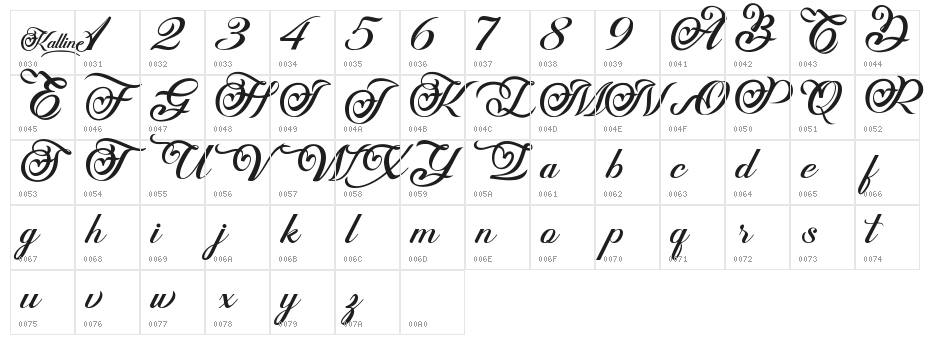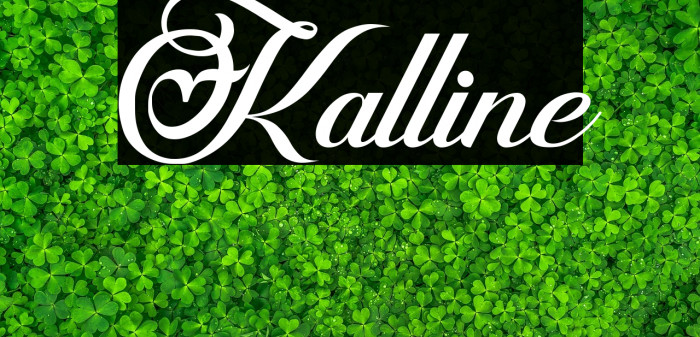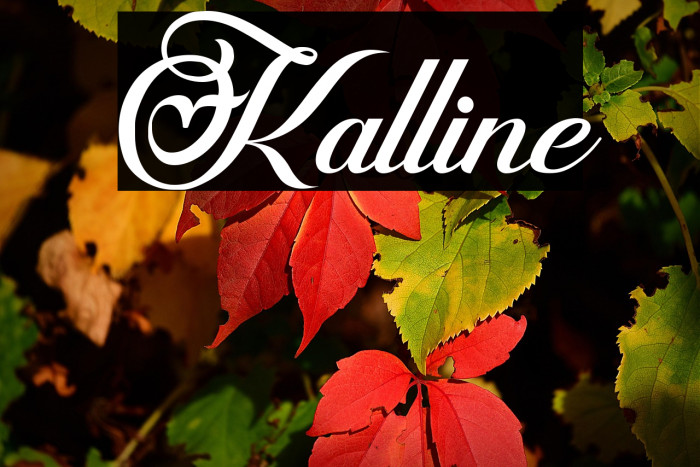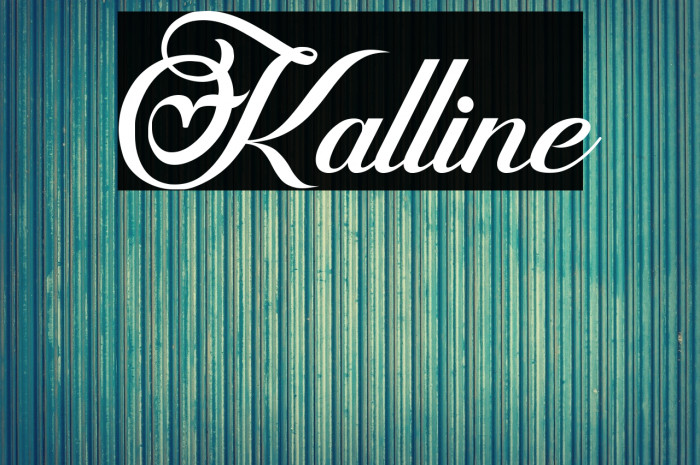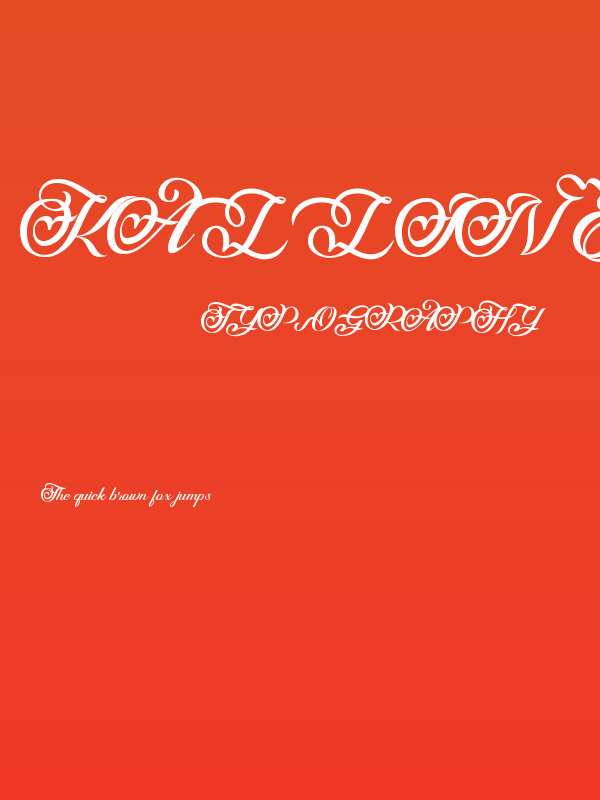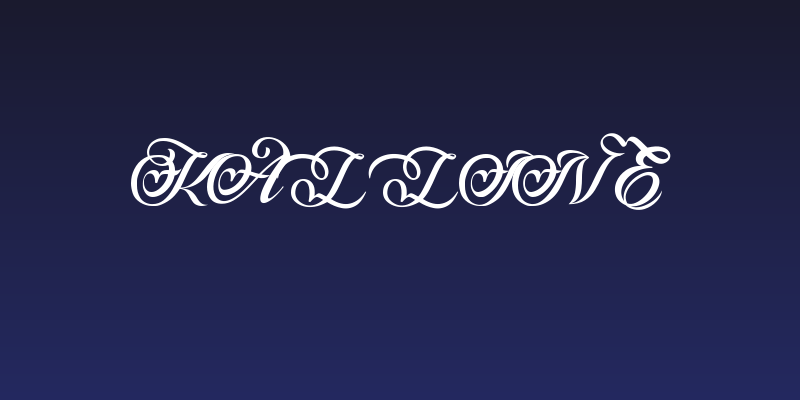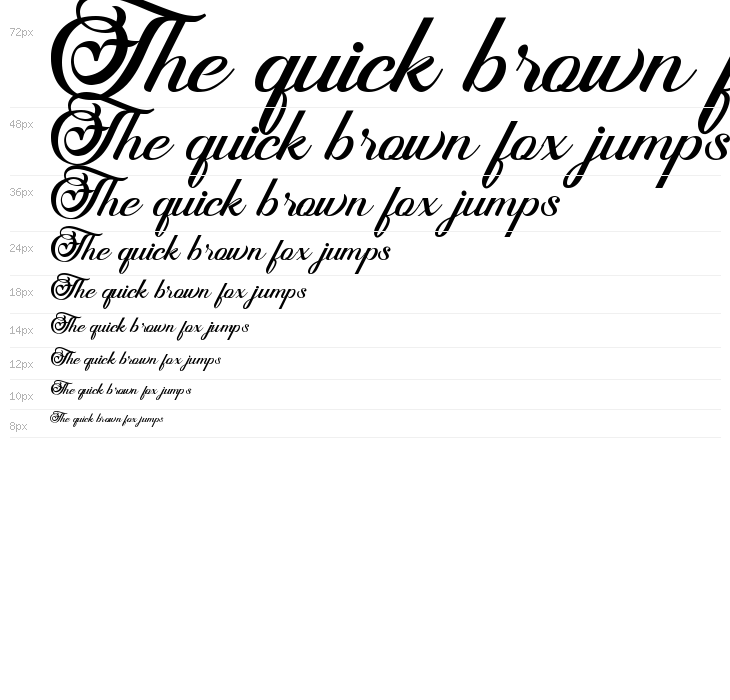
Kalline Font
Kalline Description
This font exhibits a sophisticated and elegant script style, characterized by its flowing, cursive letterforms. The uppercase letters are highly decorative with intricate swirls and flourishes, giving them a sense of grandeur and formality. The lowercase letters maintain a smooth and connected appearance, enhancing readability while preserving the font's elegant nature. The numerals are consistent with the overall style, featuring slight curves and a graceful demeanor. This font is ideal for projects that require a touch of elegance and sophistication, such as wedding invitations, formal event branding, or luxury product packaging.
| Proposed Projects | Wedding invitations, formal event branding, luxury product packaging. |